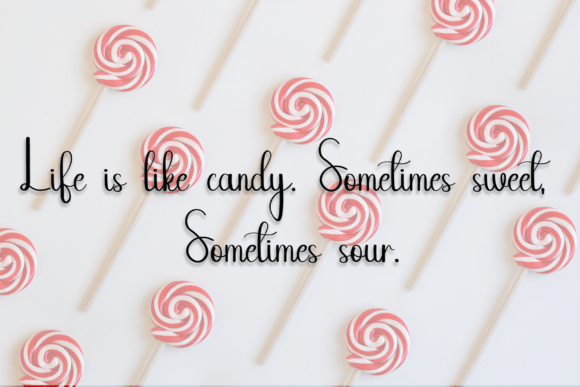
Candy Chubby Font: The Perfect Choice for Creative and Playful Designs
In the world of typography, fonts play a crucial role in conveying the tone and personality of a design. When it comes to creating a warm, friendly, and approachable feel, the Candy Chubby font is an excellent choice. This casual and creative font is designed to add a touch of playfulness to any design, making it perfect for personal projects, invitations, social media graphics, and more.
The Characteristics of Candy Chubby Font
The Candy Chubby font is characterized by its round, playful strokes that create a relaxed and informal feel. The font’s charming, hand-drawn aesthetic adds a fun and unique touch to any design, making it stand out from more traditional fonts. The overall effect is one of warmth and friendliness, making it perfect for designs that aim to connect with the audience on a personal level.
Key Features of Candy Chubby Font
- Playful and Round Strokes: The font’s round, playful strokes create a relaxed and approachable feel, perfect for designs that require a friendly tone.
- Hand-Drawn Aesthetic: The charming, hand-drawn aesthetic of the font adds a fun and unique touch to any design.
Uses of Candy Chubby Font
The Candy Chubby font is versatile and can be used in a variety of design projects, including:
Perfect for:
- Personal Projects: The font’s friendly and approachable feel makes it perfect for personal projects, such as photo albums, scrapbooking, and more.
- Invitations: The font’s playful and creative aesthetic makes it ideal for invitations, such as birthday parties, baby showers, and more.
- Social Media Graphics: The font’s fun and unique touch makes it perfect for social media graphics, such as quotes, posters, and more.
Benefits of Using Candy Chubby Font
Using the Candy Chubby font in your designs offers several benefits, including:
Why Choose Candy Chubby Font?
- Unique and Creative: The font’s playful and hand-drawn aesthetic adds a unique and creative touch to any design.
- Easy to Read: The font’s round and playful strokes make it easy to read, even at smaller sizes.
- Versatile: The font is versatile and can be used in a variety of design projects, from personal to commercial.
In conclusion, the Candy Chubby font is a perfect choice for designers who want to add a touch of playfulness and friendliness to their designs. With its round, playful strokes and charming, hand-drawn aesthetic, this font is sure to make your designs stand out. Its versatility, compatibility with various applications, and ease of use make it a great addition to any designer’s toolkit.